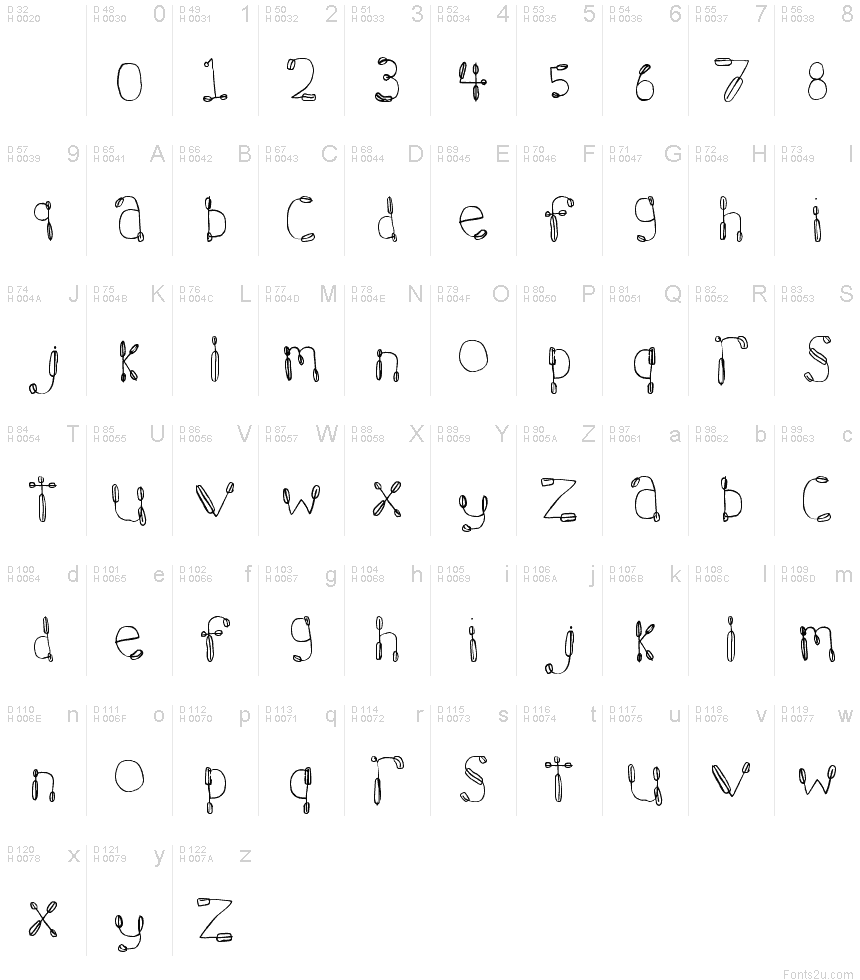
7 hours
7 hours is a playful, cartoon-inspired font that exudes a sense of whimsical charm. Crafted by designer Tom 7, this light display font boasts an engaging, hand-drawn aesthetic, with each character sporting a distinctive, almost quirky personality. The flowing, organic lines and exaggerated curves give the typeface a lively, animated quality, making it well-suited for a variety of creative applications, from children's storybooks and product packaging to social media graphics and event branding.
Its versatile style effortlessly bridges the gap between playfulness and professionalism, making "7 hours" an intriguing choice for designers seeking to add a touch of character and personality to their projects.